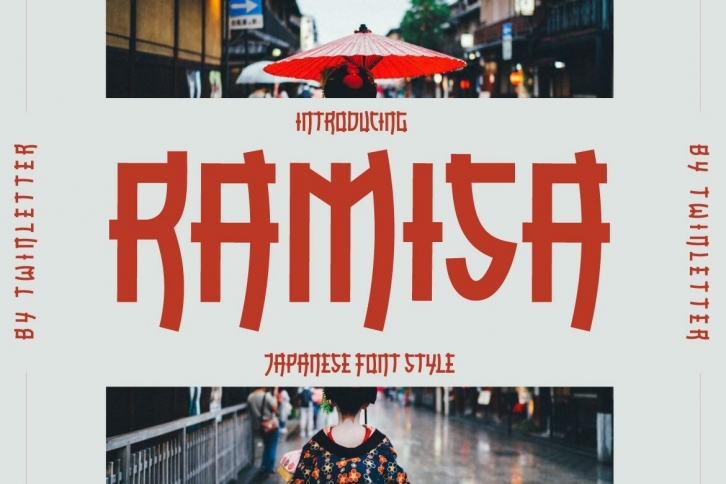
RAMISA Faux Japanese is a trendy and unique font with an authentic style. It was designed by twinlettertype and it's a great choice for creative people who need such a font. It was released on December 9, 2021 and the file size is 15.37 MB. RAMISA Faux Japanese will add an organic vibe to any design idea!